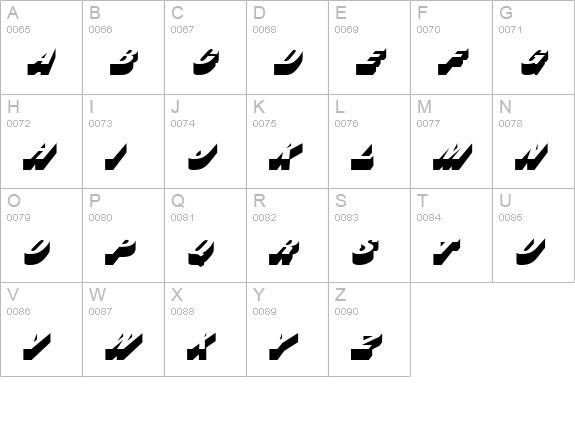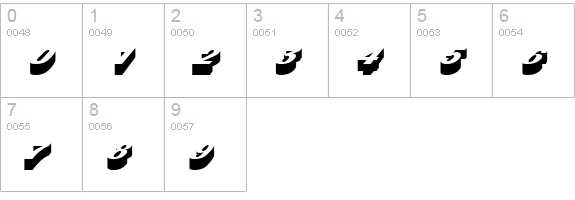
BusterD Font Details
Introducing BusterD font, a stylish and versatile typeface that exudes modernity and creativity. This unique font features a perfect balance of sleek lines and playful curves, making it perfect for a wide range of design projects. Whether you're working on branding, marketing materials, or social media graphics, BusterD font is sure to make a lasting impression. What sets BusterD font apart is its ability to convey both professionalism and personality, making it ideal for businesses and individuals looking to stand out from the crowd. With a wide range of characters and symbols, this font offers endless possibilities for customization and creativity. Best of all, BusterD font is completely free to download at FontsMarket.com, allowing you to access this premium font without breaking the bank. Don't miss out on the opportunity to elevate your designs with BusterD font today!